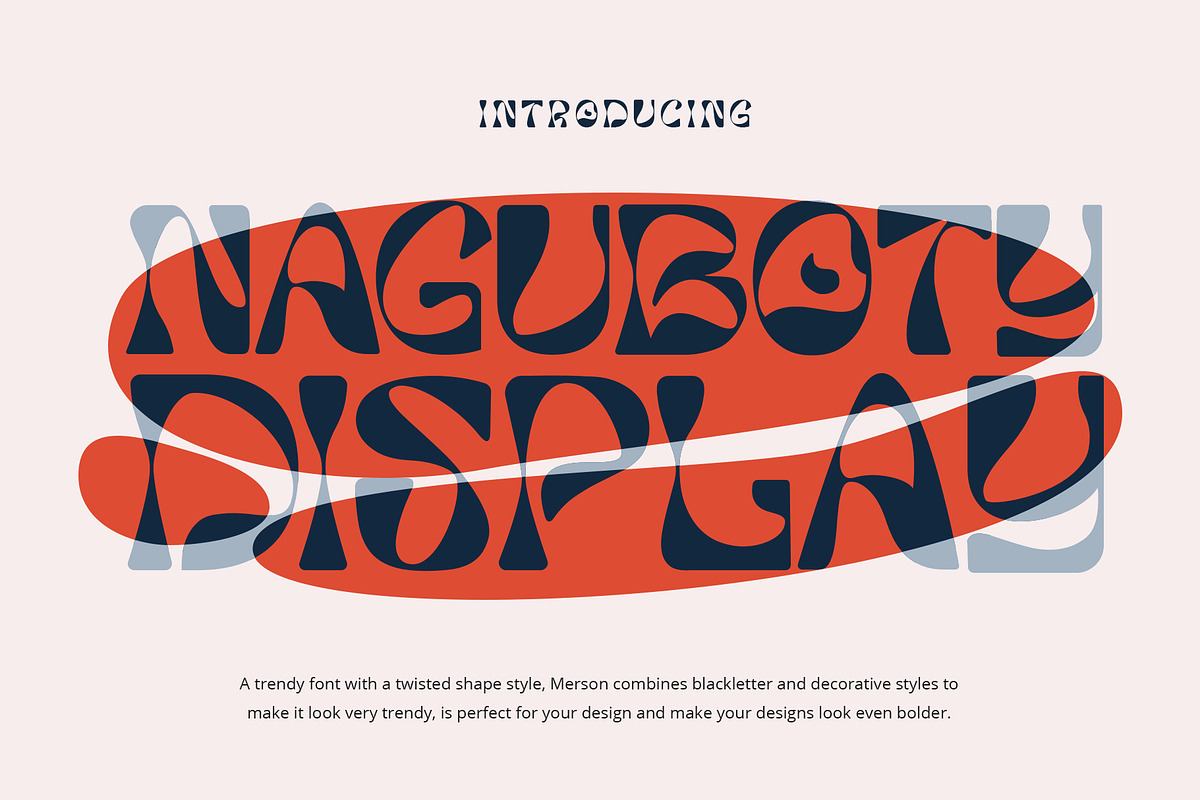
Naguboty Display Font Free Download is a bold and uniquely styled typeface designed to grab attention with its dramatic shapes and artistic flair. With its sharp lines, abstract curves, and modern design, Naguboty is perfect for editorial headlines, fashion branding, posters, album covers, and high-impact visual content that demands a distinctive, cutting-edge look.
Ideal for designers looking to push creative boundaries, Naguboty Display Font Free Download stands out in both print and digital projects. Its avant-garde aesthetic makes it especially well-suited for experimental designs and forward-thinking brands.